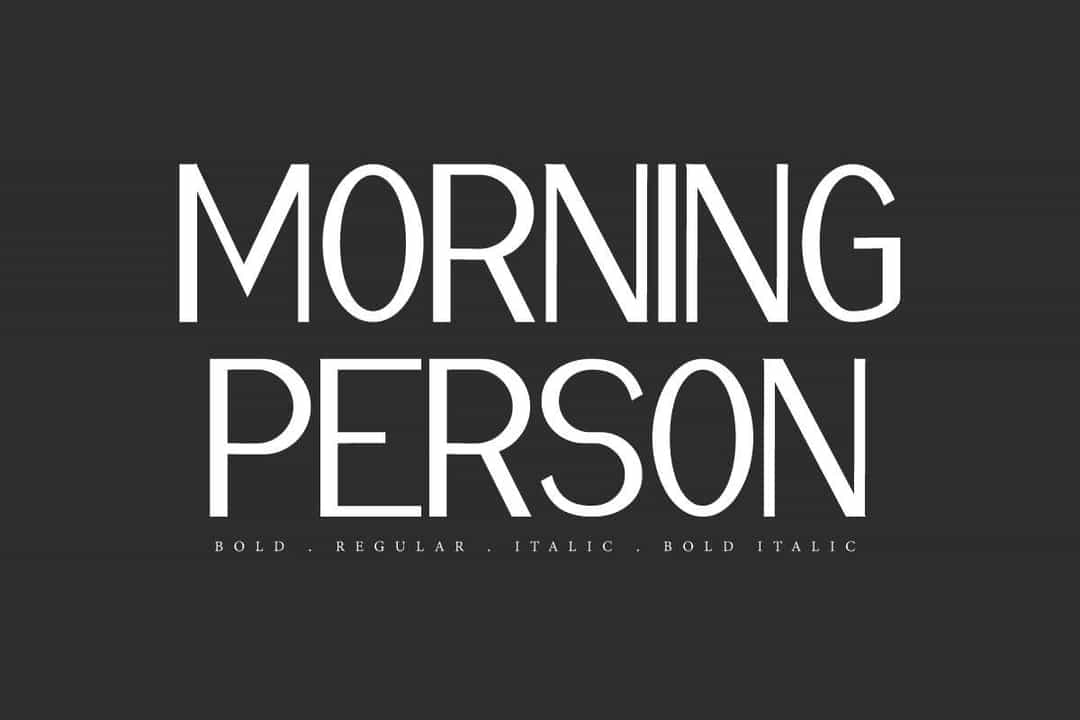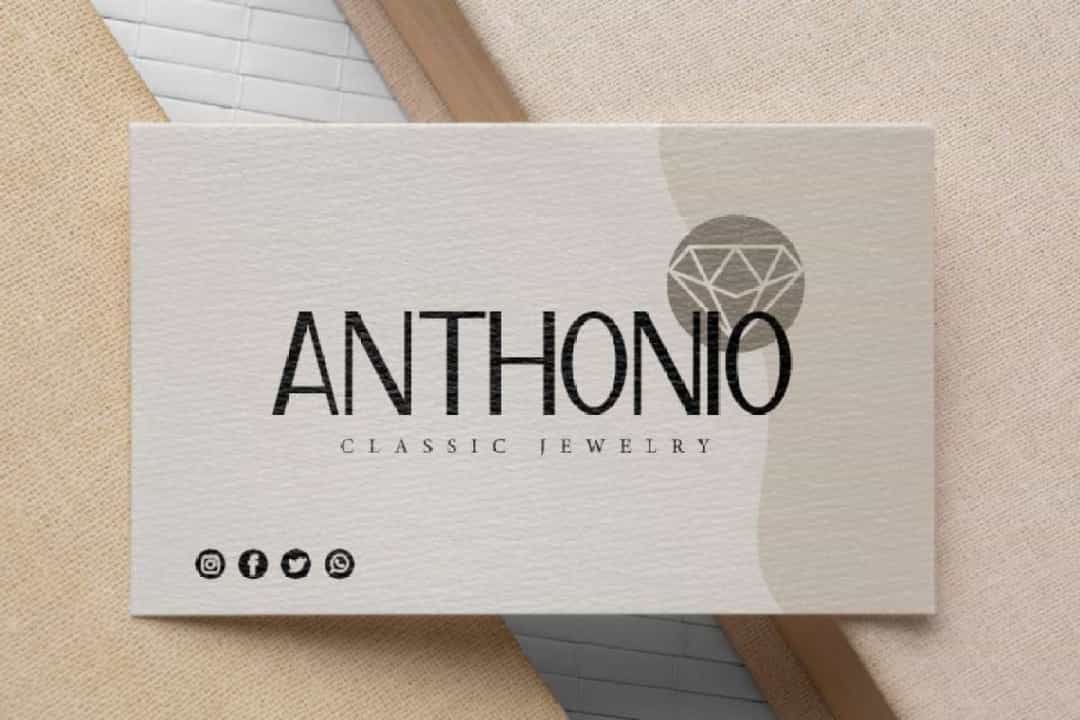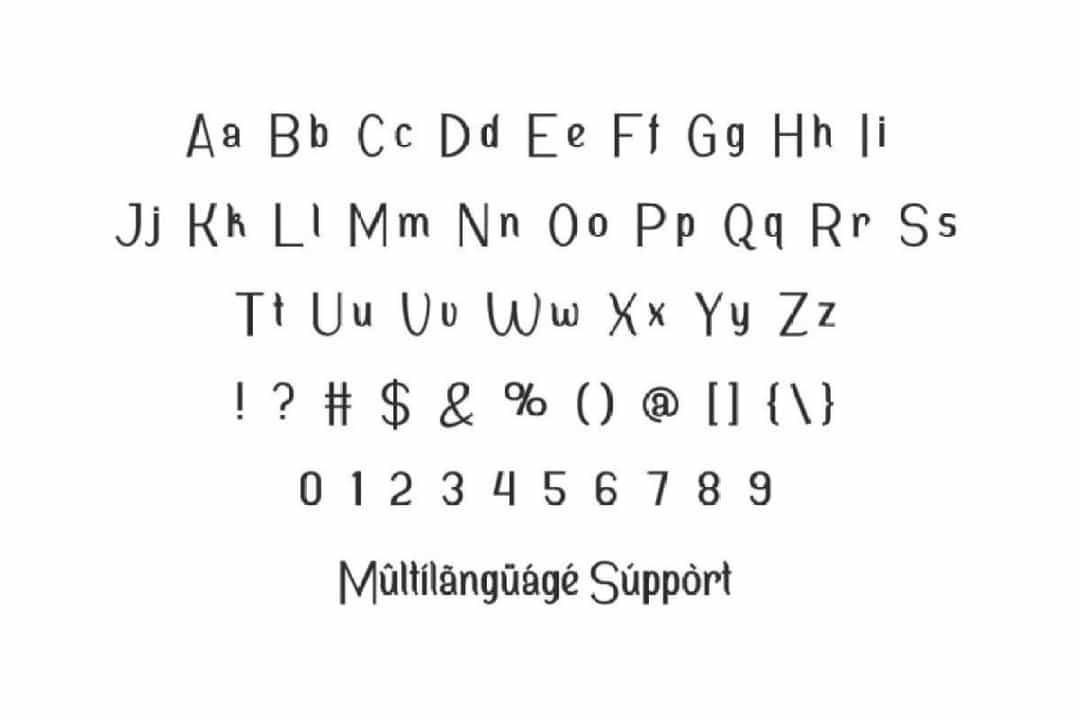
Morning Person Font
Discover Morning Person Font, part of the   Sans Serif Display collection—a versatile and unique font perfect for adding a personal touch to your projects. Download it for free and enjoy crafting designs with style, from invitations to social media posts. This font is available exclusively for personal use, giving you the freedom to create without limits. Unlock your creativity with Morning Person Font today!
Morning Person Font is an elegant yet minimalist sans-display font designed specifically for VinType Studio. Available in four styles; Regular, Bold, Italic and Italic Bold to add distinct style to any design; ideal for cafes fashion flowers homeware florist perfume jewelry photography printing skincare real estate etc. Morning Person Font is an extensive collection of Uppercase as well as Lowercase Basic Characters, Punctuation and numerals designed specifically for display on web designs and printed material.